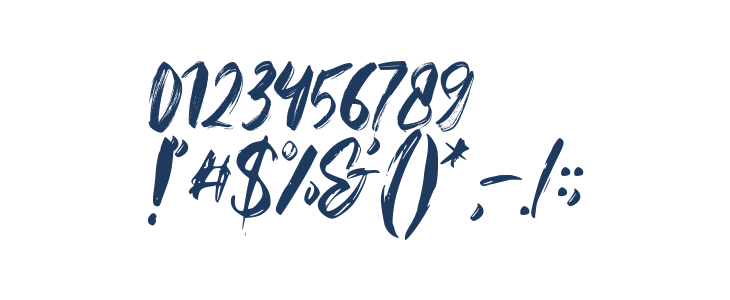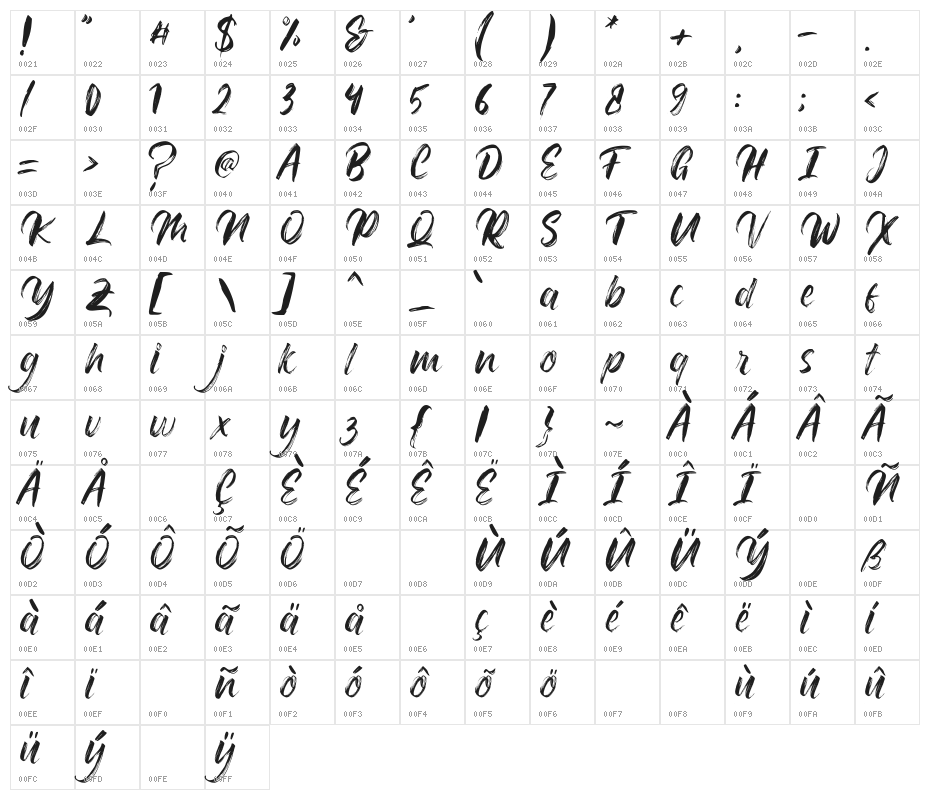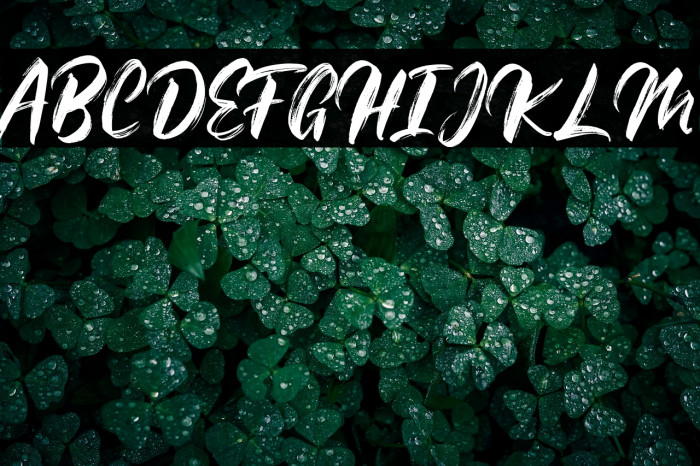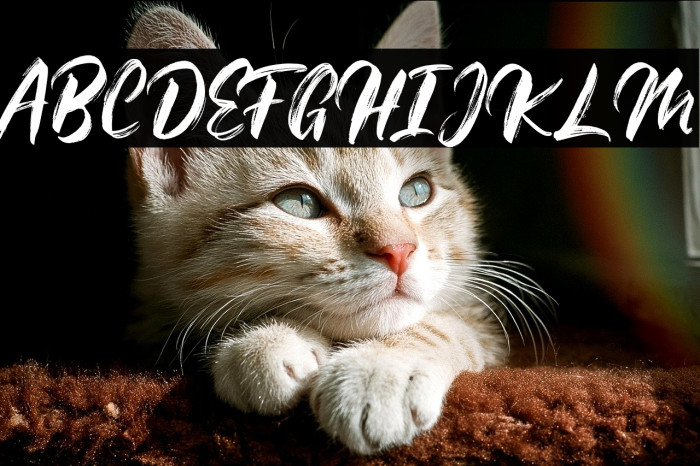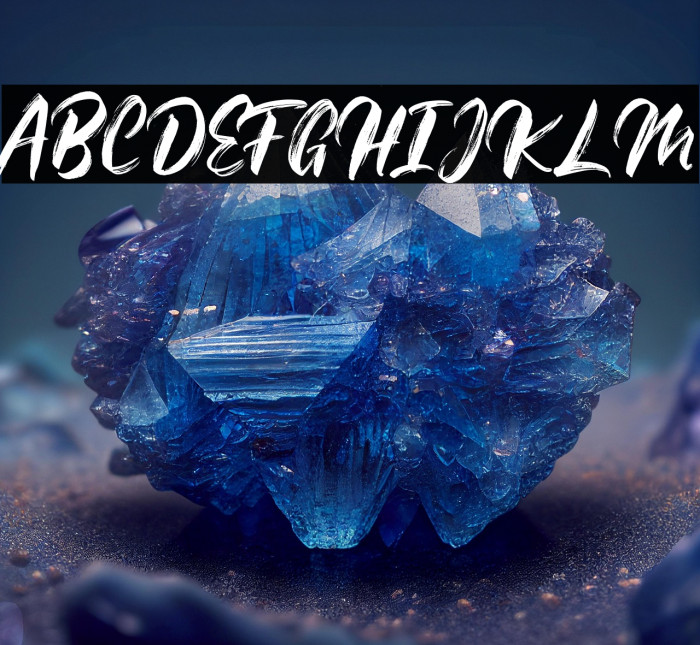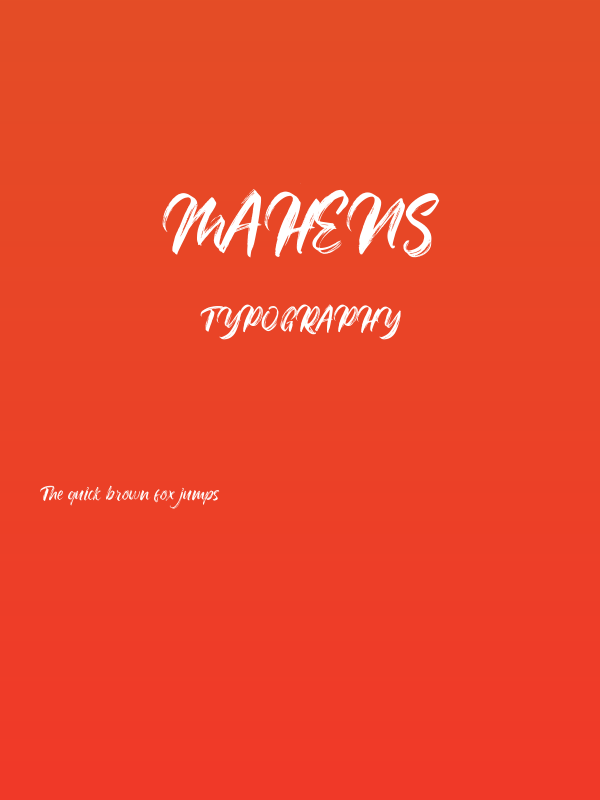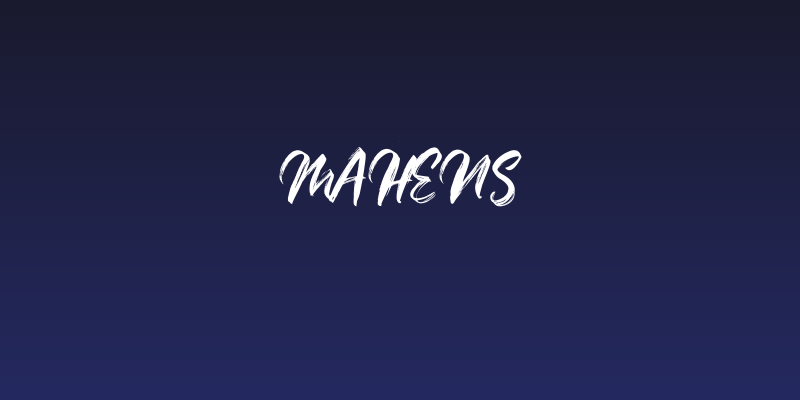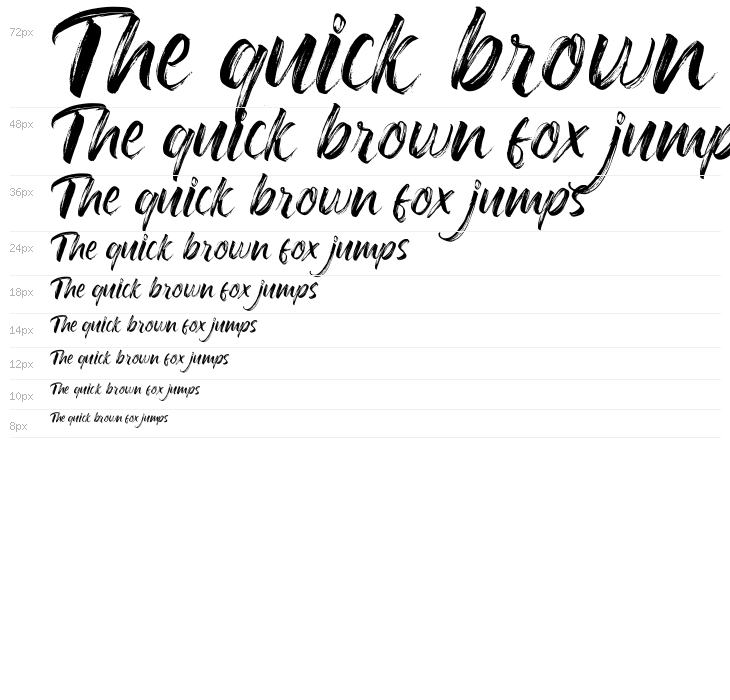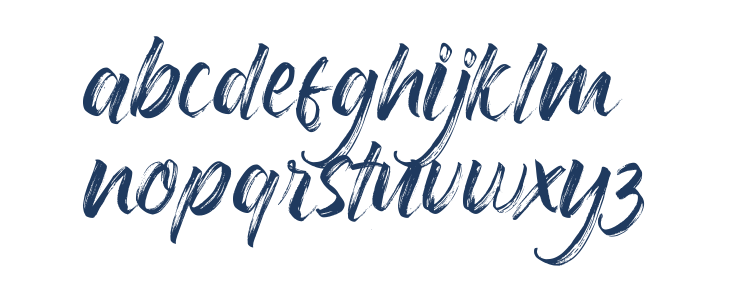
Mahens Font
Mahens Description
This font exhibits a bold, expressive brush script style, characterized by its dynamic and fluid strokes. The letters have a hand-painted appearance, with varying thicknesses that create a sense of movement and energy. The uppercase and lowercase letters are well-balanced, maintaining a consistent flow throughout. The numbers and special characters follow the same artistic style, adding to the font's cohesive look. The overall design is both artistic and legible, making it suitable for creative projects that require a personal touch.
| Proposed Projects | Ideal for branding, posters, invitations, and artistic projects that require a personal and dynamic touch. |